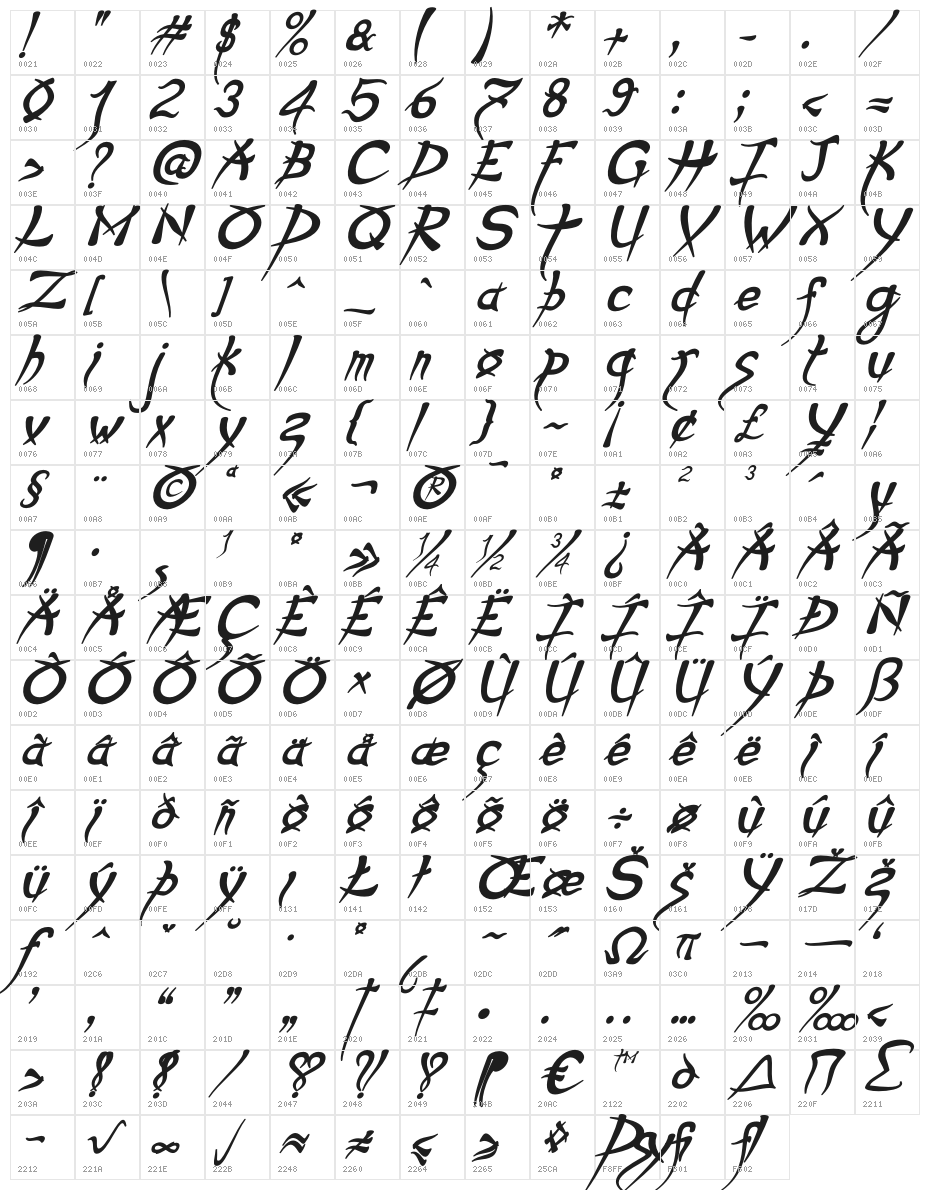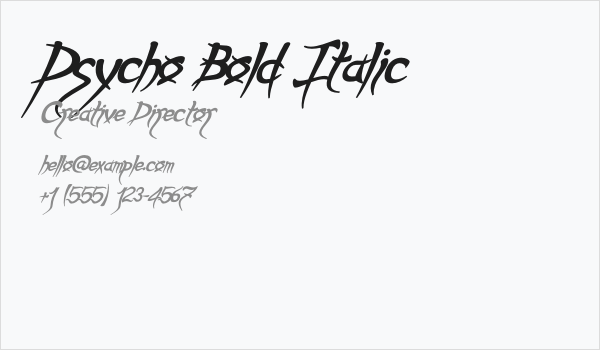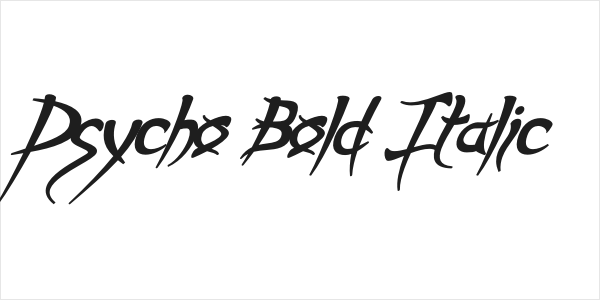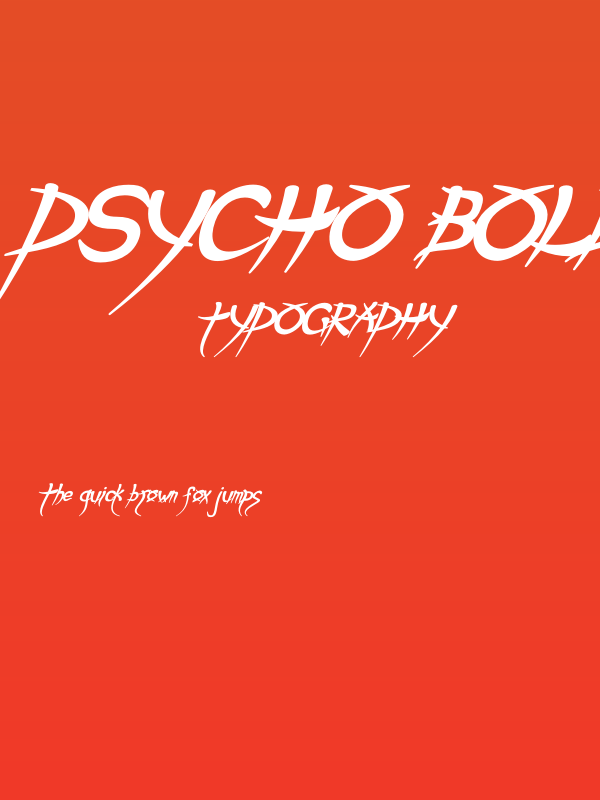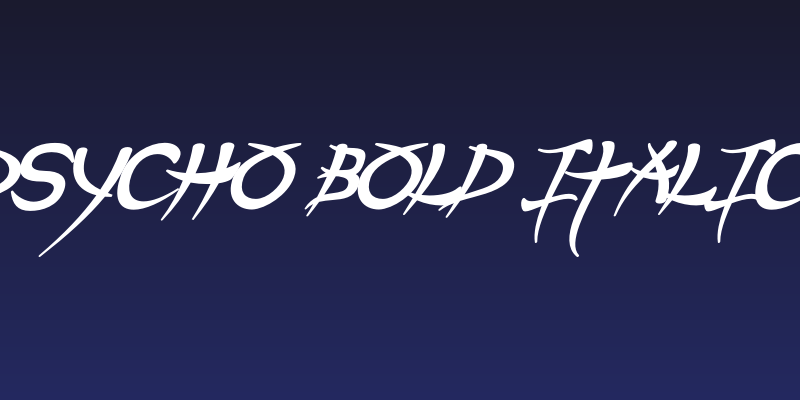
Psycho Bold Italic Font
Psycho Bold Italic Description
This font features a bold and italicized style with a distinctively chaotic and energetic appearance. The characters are heavily slanted, giving a sense of motion and urgency. The strokes are thick and expressive, with sharp angles and exaggerated curves that create a dynamic and somewhat aggressive look. The uppercase and lowercase letters maintain a consistent style, with the uppercase being slightly more angular. Numbers and special characters follow the same bold and italicized theme, ensuring uniformity across all glyphs. This font's unique design makes it stand out, capturing attention with its bold presence.
Overall StyleModern, Energetic
Proposed ProjectsIdeal for edgy branding, music album covers, posters, and creative projects that require a bold statement.